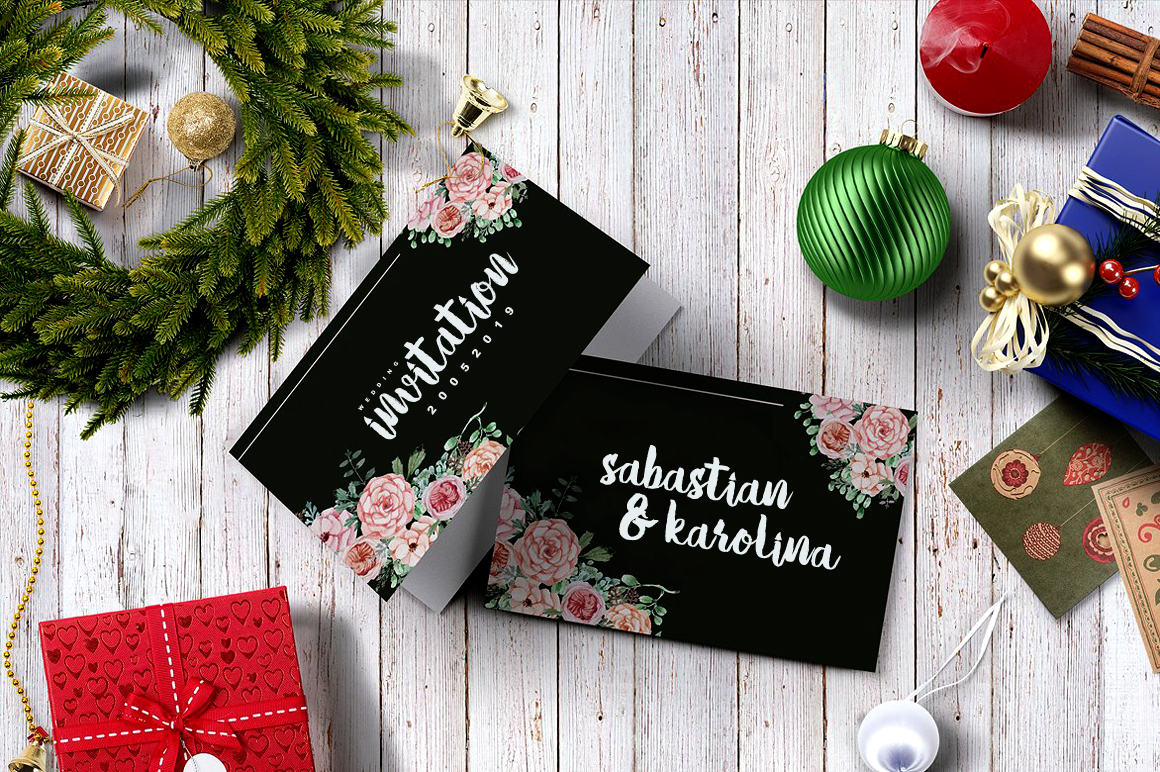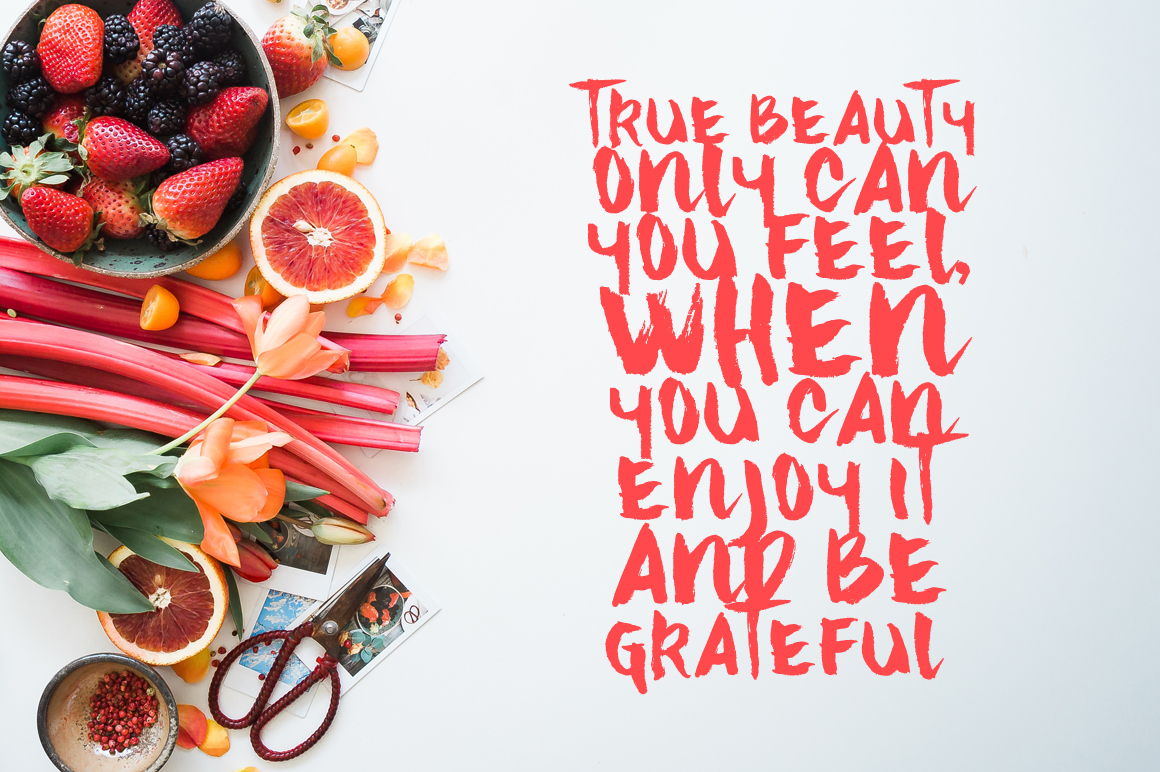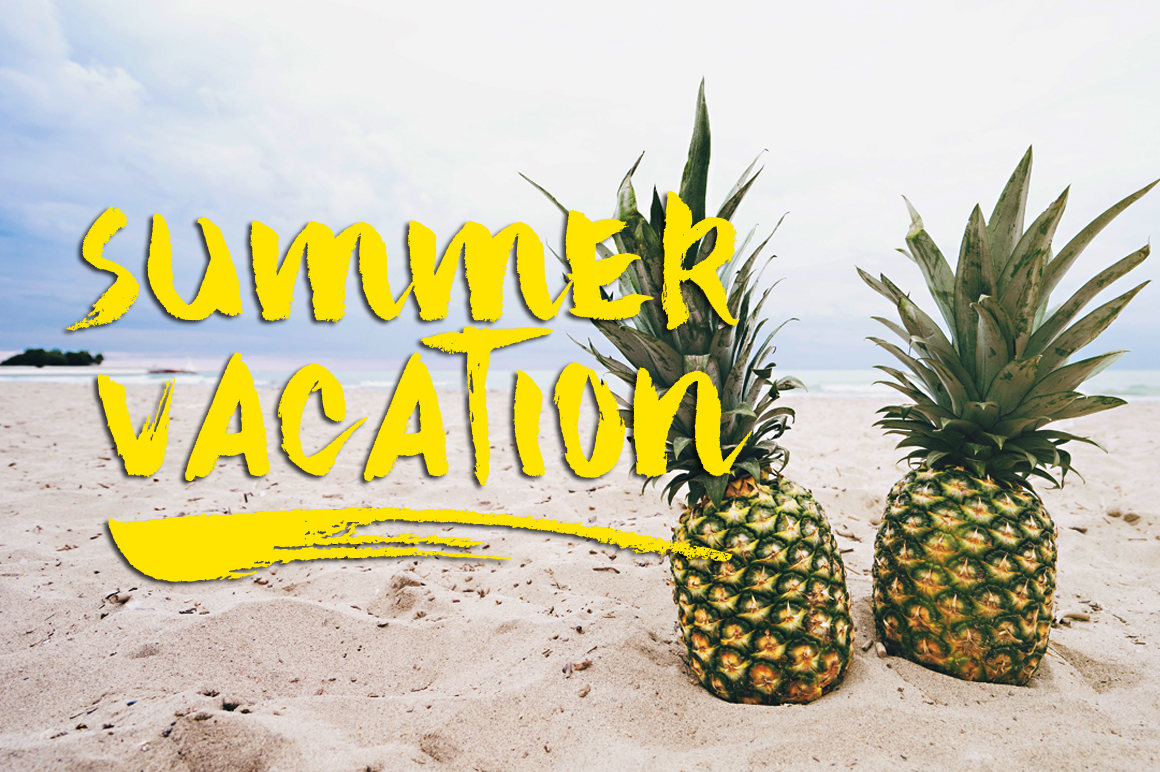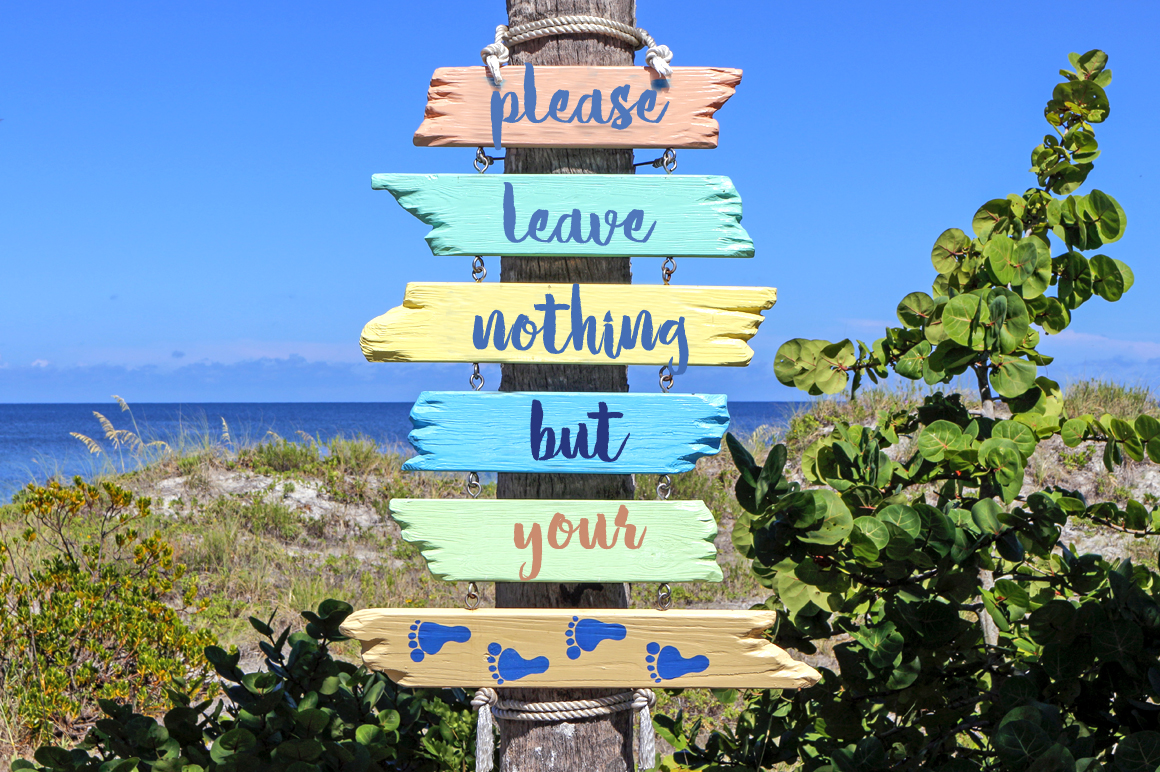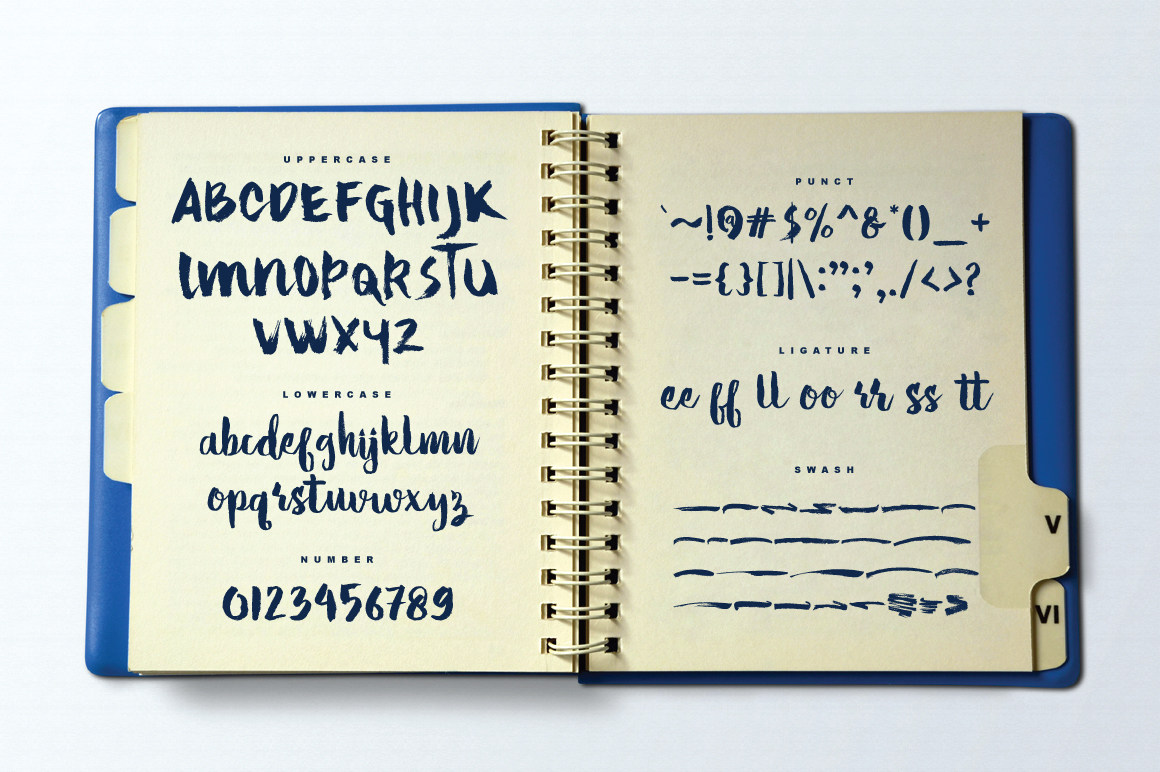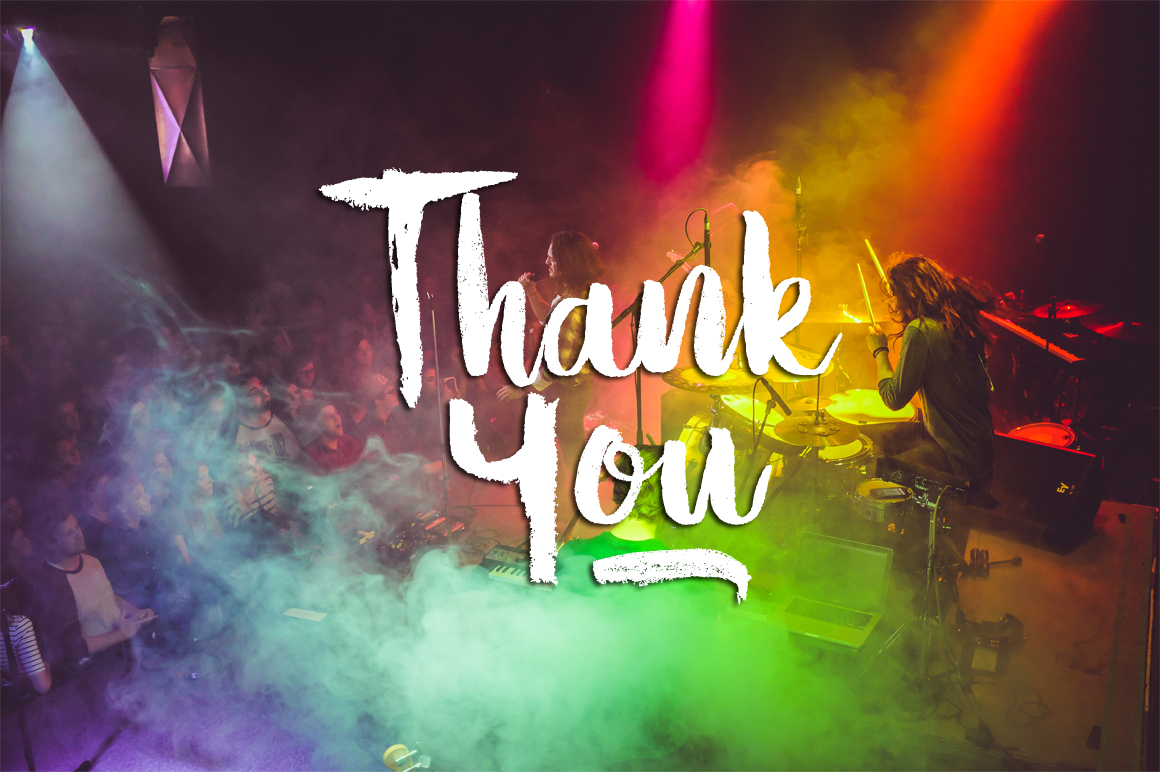
Introduction to Hello Tropical Font
Hello Tropical, a playful brush script.
This is the perfect summer-vibe font The solid brush strokes will add happiness to your designs and will leave a lasting memory.
Key Features of Hello Tropical Font
Why Choose Hello Tropical Font?